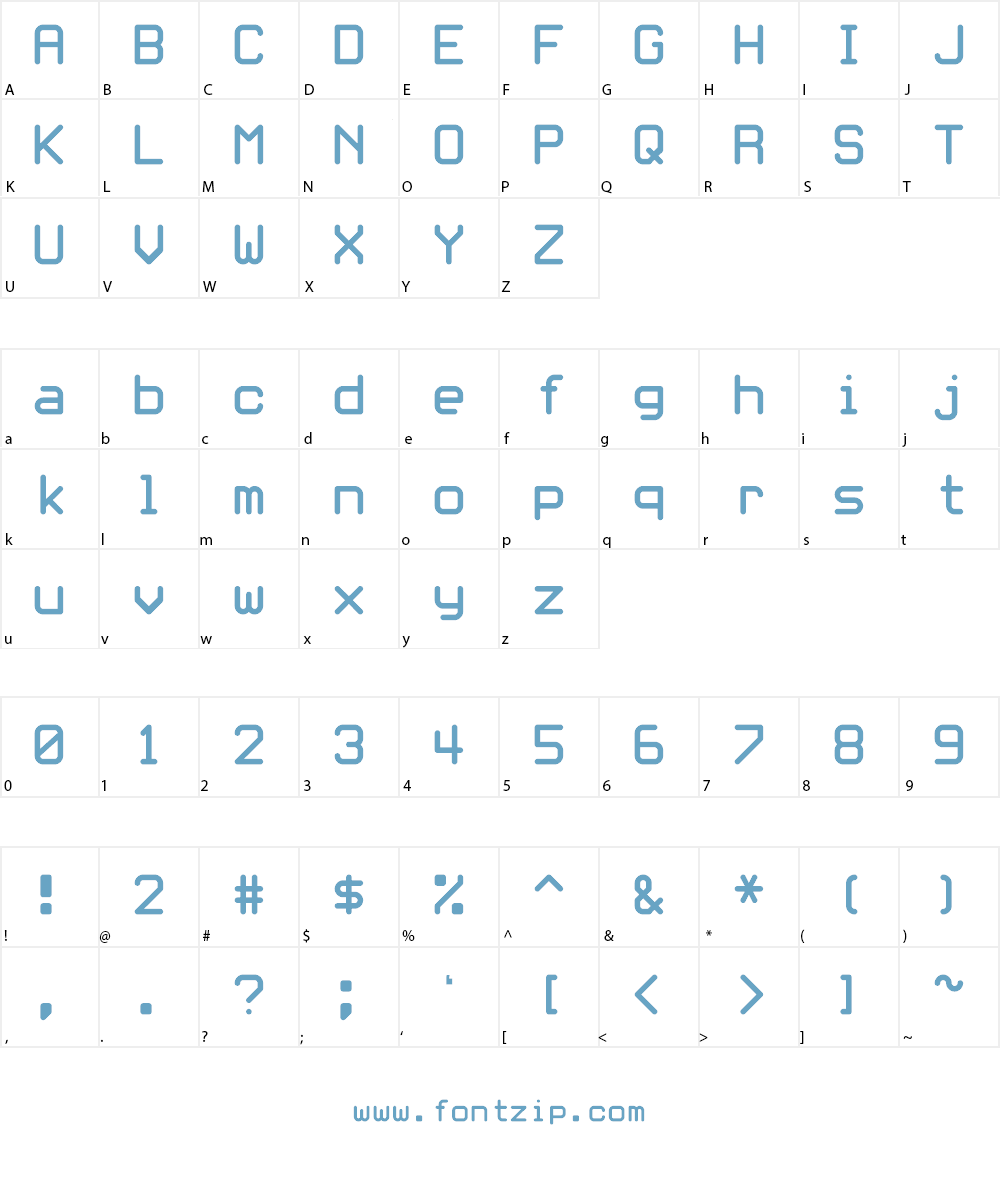
White Rabbit is reminiscent of the characters displayed on all those
old low-res terminal screens. Smoothed out and cleaned up for 1999,
this is the font to use for all your computing applications.